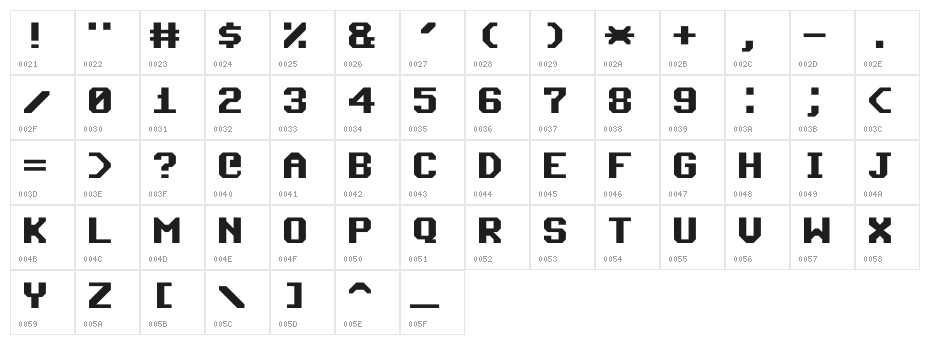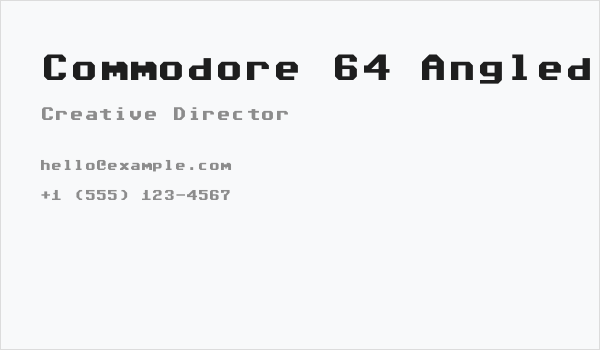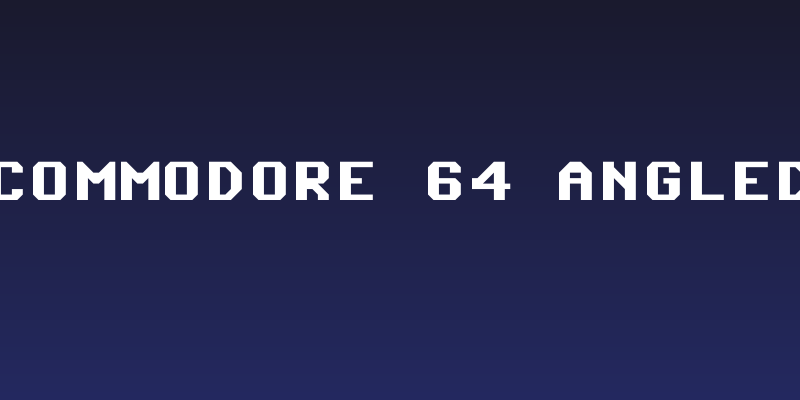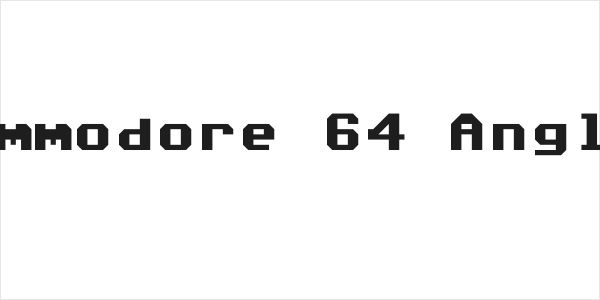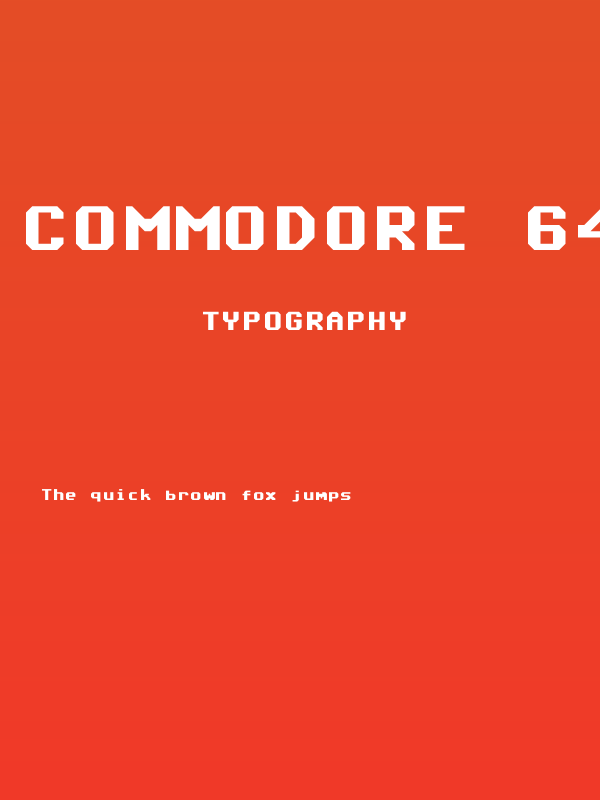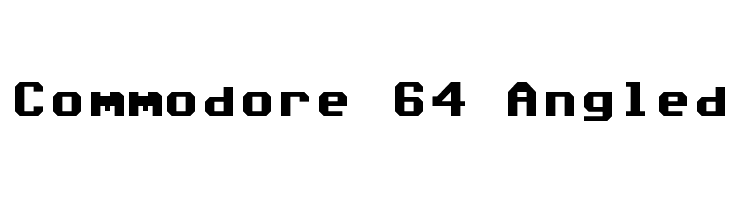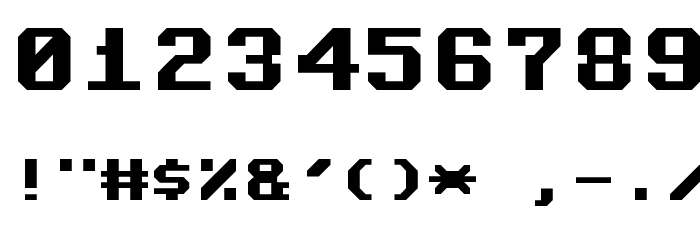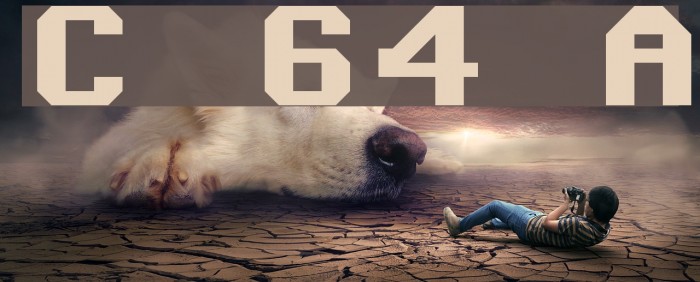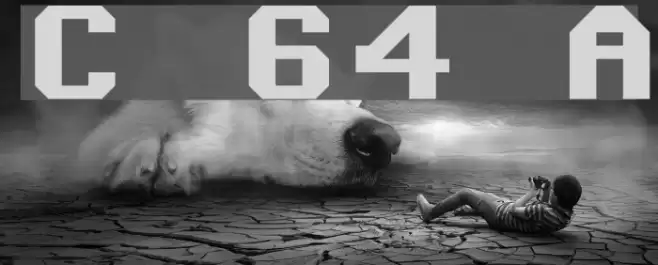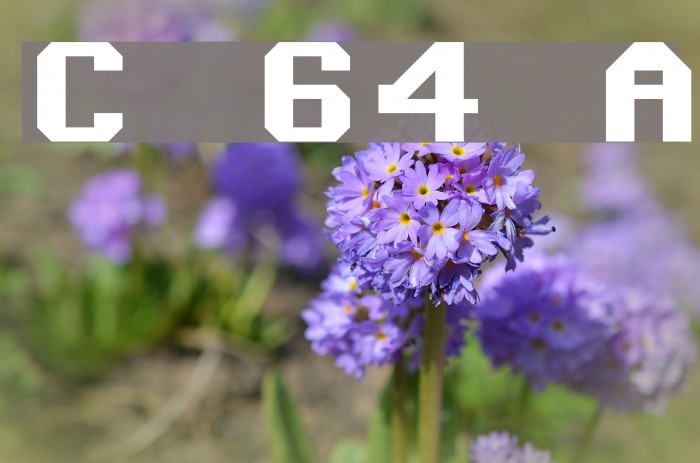
Commodore 64 Angled Font
Commodore 64 Angled Description
This font features a distinct, angular design reminiscent of retro computing aesthetics. The characters are bold and blocky, with a geometric structure that emphasizes straight lines and sharp corners. Uppercase and lowercase letters maintain a consistent width, contributing to a monospaced appearance. The numerals and special characters follow the same angular style, ensuring uniformity across all glyphs. This font evokes a sense of nostalgia, ideal for projects aiming to capture the essence of early digital technology. Its simplicity and clarity make it suitable for both display and functional purposes.
| Overall Style | Retro |
| Use Case | Headlines, Logos, Digital Interfaces |
| Proposed Projects | Ideal for retro-themed designs, tech-related branding, video game interfaces, and digital art projects. |